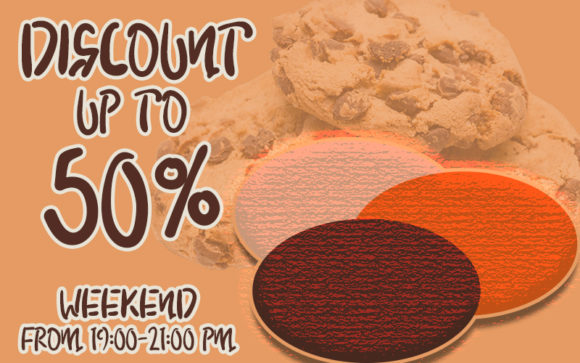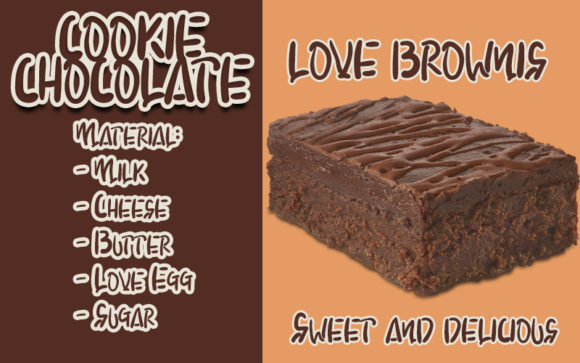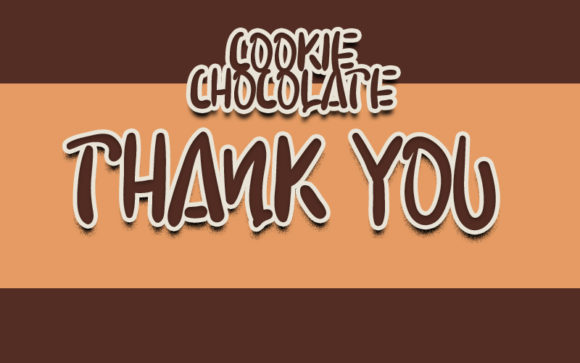
Introduction to Chocolate Cookie Font
Remember the feeling of excitement when you stumble upon a design resource that perfectly captures the essence of your creative vision? It’s like finding a hidden treasure that makes all your DIY projects shine. For designers and crafty enthusiasts, discovering a unique and high-quality font like the Chocolate Cookie Font can be a game-changer.
This adorable handwritten font, with its friendly feel and gorgeous aesthetic, is an absolute must-have for any creative project. Whether you’re designing a personalized card, creating a social media graphic, or developing a branding strategy, the Chocolate Cookie Font is sure to bring a touch of warmth and personality to your work.
Key Features of Chocolate Cookie Font
- Unique and playful design: Chocolate Cookie Font is a creative project that adds a touch of whimsy to any design.
- Easy to use: This font is perfect for designers of all levels, with a simple and intuitive design that’s easy to customize.
- Perfect for creative projects: Chocolate Cookie Font is ideal for use in baking and food-related designs, as well as other creative projects that require a playful touch.
Honest Review: Chocolate Cookie Font
I recently had the chance to work with the Chocolate Cookie Font, and I must say it’s a delightful addition to any creative project. This font is perfect for bakeries, food blogs, or any design that needs a playful touch.
- High-quality design with smooth lines and curves ✨
- Transparent background, making it easy to combine with other design elements ✨
- ⚠️ Limited character set, which may not be suitable for longer text-based projects
- ⚠️ Not ideal for formal or professional designs, as it’s more suited for playful and casual projects
Overall, I’m impressed with the Chocolate Cookie Font. It’s a great resource for designers looking to add a touch of whimsy to their work. While it may have some limitations, it’s definitely worth considering for your next creative project.
Tips for Getting the Most Out of the Chocolate Cookie Font
To get the most out of the Chocolate Cookie Font, use it on a high-quality transparent background to make the text stand out. You can also pair it with other fonts to create a unique and creative design.
The Chocolate Cookie Font is perfect for use in baking and food-related designs, as well as for creating a whimsical and playful feel in your projects. It’s also great for use in social media graphics, blog posts, and marketing materials.